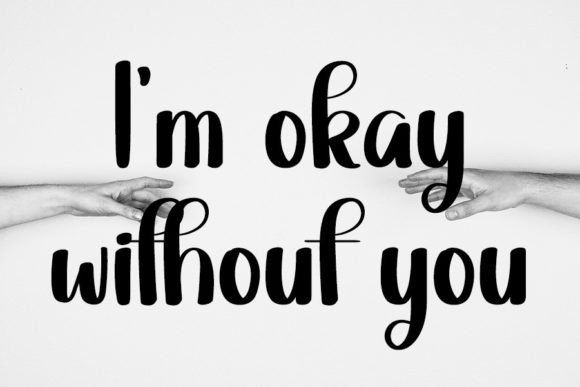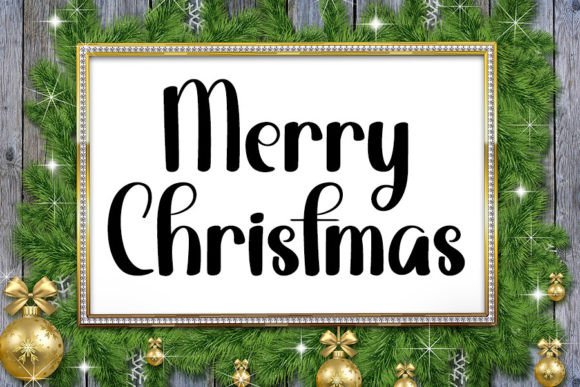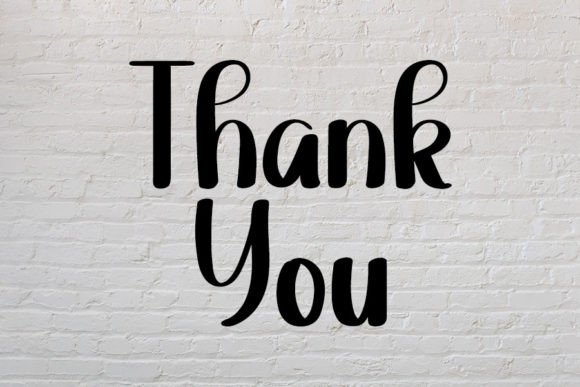
The Perfect Script for Your Next Design Project
There’s nothing quite like the feeling of brainstorming a new design project – the ideas flowing, the excitement building, and the anticipation of bringing it all to life. As you start to conceptualize, you know that the right font can make all the difference. That’s where the Holidays Font comes in – a beautiful, handwritten script that exudes elegance and sophistication.
With its contemporary atmosphere and timeless classic calligraphy inspiration, the Holidays Font is the perfect addition to any design project. Whether you’re working on a wedding invitation, a luxury brand campaign, or a personal blog, this font is sure to add a touch of class and refinement. And as a designer, you know how valuable it is to have a versatile font that can elevate your work and make it truly stand out.
Holidays Font Key Features
- Font Family: Holidays Font is a script font family designed for holiday and seasonal use, ideal for festive and celebratory designs.
- Font Sizes: Holidays Font comes in a range of sizes, including 6 styles (from Thin to Heavy) and 12 weights for added flexibility and customization.
- Unique Characteristics: Features a hand-drawn, whimsical feel with intricate details and flourishes, making it perfect for creating eye-catching and festive designs.
Holidays Font Review
Holidays Font is a fun and festive font designed for holiday-themed projects. Here’s what I think of it:
- Unique and playful design: Holidays Font has a charming, whimsical feel that’s perfect for holiday projects.
- Variety of weights and styles: The font comes in multiple weights and styles, including bold, italic, and outline options, making it versatile for different design needs.
- Great for headers and titles: The font’s large, bold letters make it ideal for use as headers and titles in holiday projects, such as greeting cards, posters, and social media graphics.
- Not suitable for body text: While Holidays Font is great for headers and titles, its irregular shape and varying letter spacing make it difficult to read as body text.
- Limited language support: The font may not include all the characters and symbols needed for languages other than English.
- May not be suitable for formal projects: The font’s playful, festive design may not be suitable for formal or professional projects.
Overall, Holidays Font is a great choice for holiday-themed projects that require a fun and festive design. However, it may not be the best choice for body text or formal projects.
Tips: Use Holidays Font for festive and celebratory designs, such as holiday cards and party invitations.
Tips: Use Holidays Font for complex designs, such as custom holiday cards and gift tags.
Tips: Use Holidays Font for presentations and documents related to holidays and special events.
Holidays Font is ideal for:
- Holiday cards and invitations
- Party decorations and invitations
- Gift tags and wrapping paper
- Special event presentations and documents
Alternatives to Holidays Font for Designers
Great Vibes is a beautiful script font that works well for creating a sense of elegance and sophistication. It is ideal for use in wedding invitations, birthday cards, and other special occasion designs.
Compared to Holidays Font, Great Vibes has a more refined and polished look, making it a great choice for designers who want to create a high-end feel.
Pacifico is a modern script font that is perfect for creating a relaxed and casual atmosphere. It is great for use in beach-themed designs, summer invitations, and other projects that require a laid-back vibe.
Pacifico is similar to Holidays Font in that it is a script font, but it has a more modern and sleek look, making it a great choice for designers who want to create a contemporary feel.